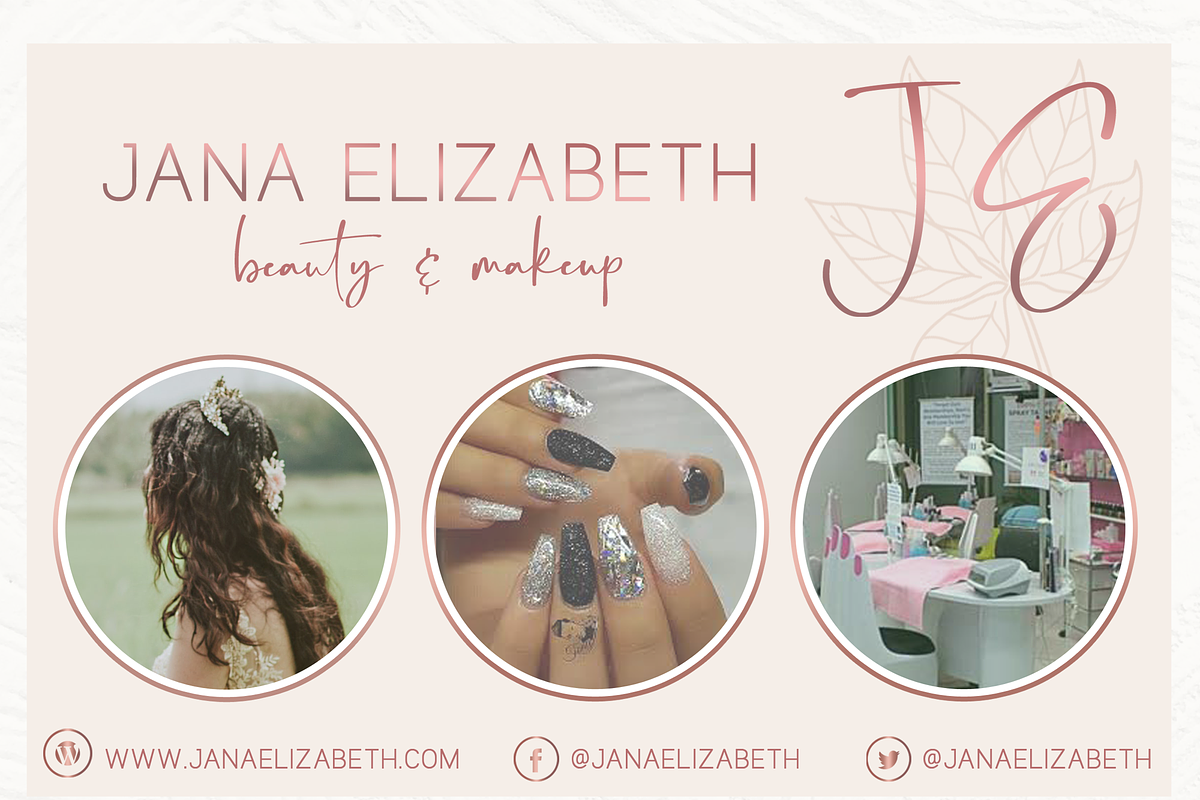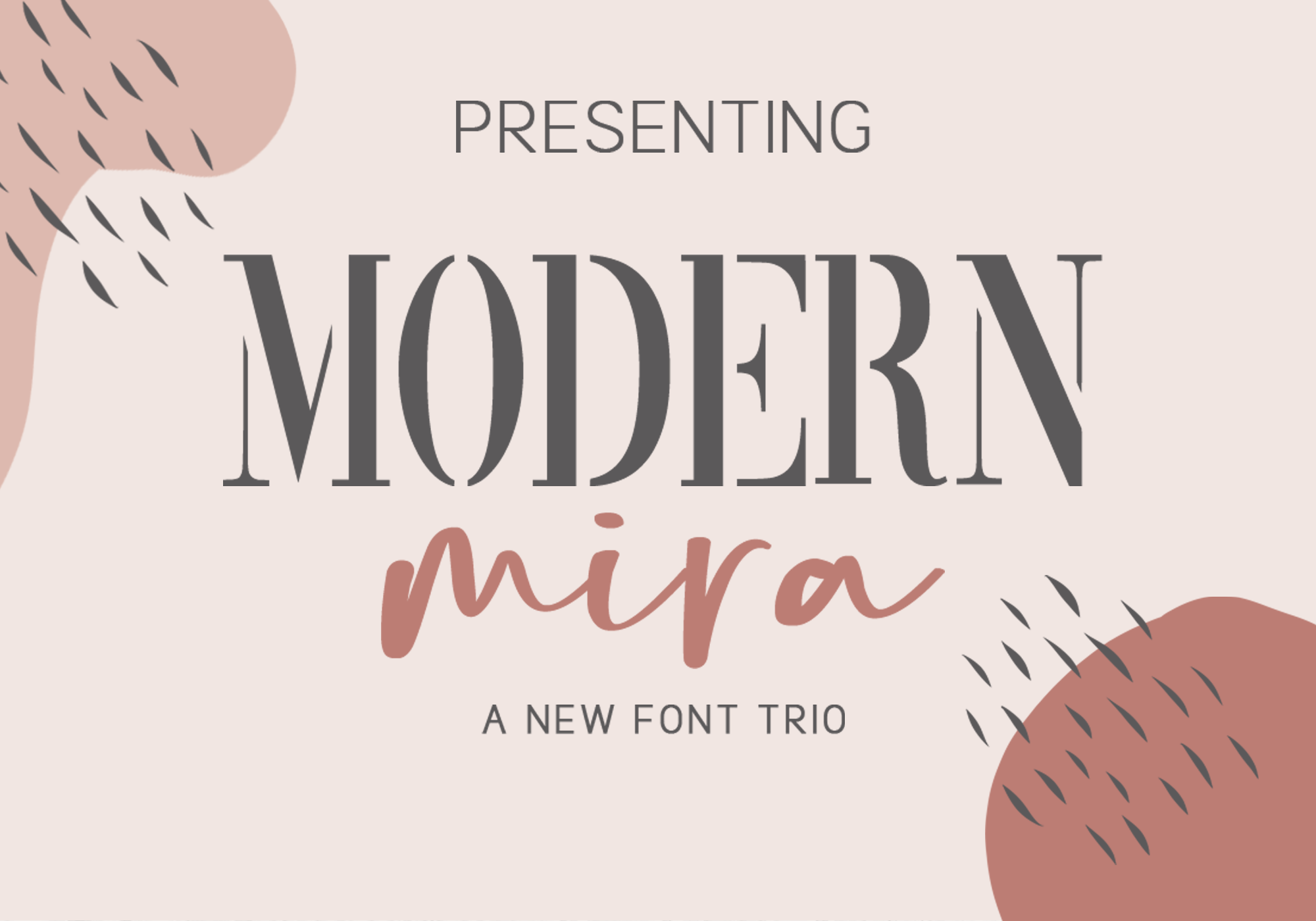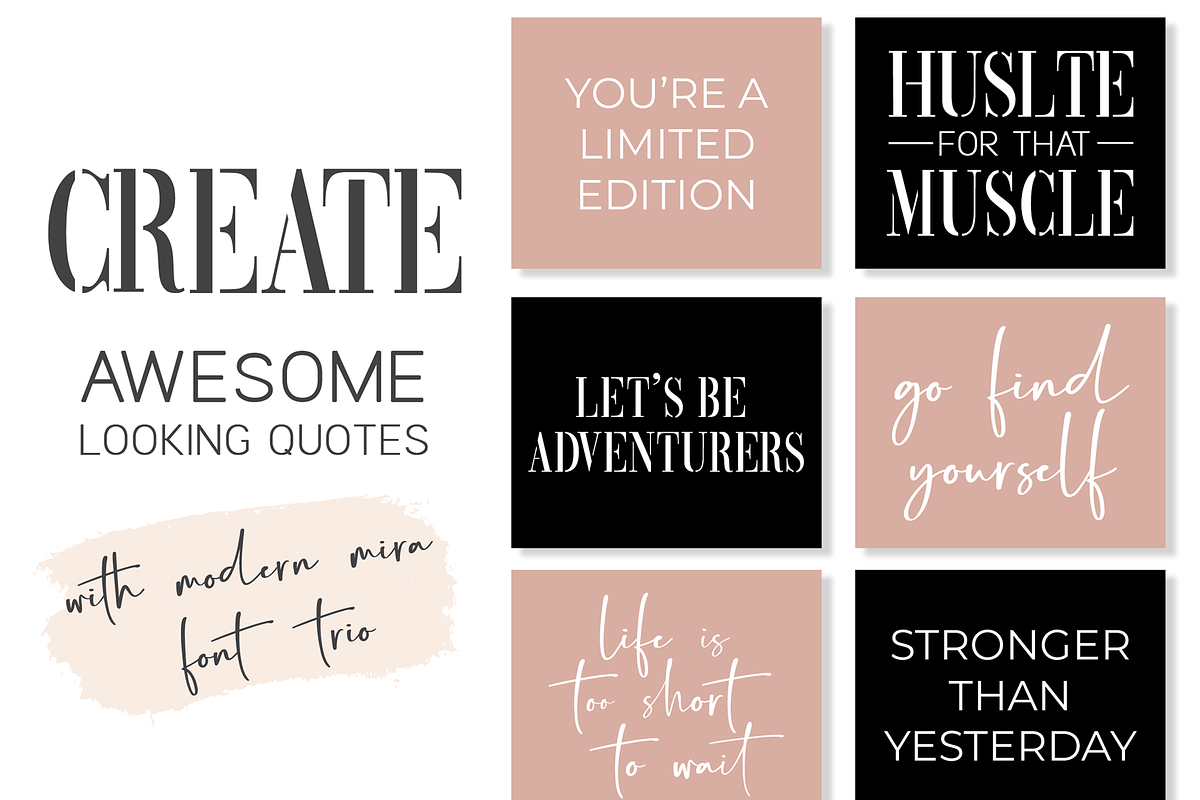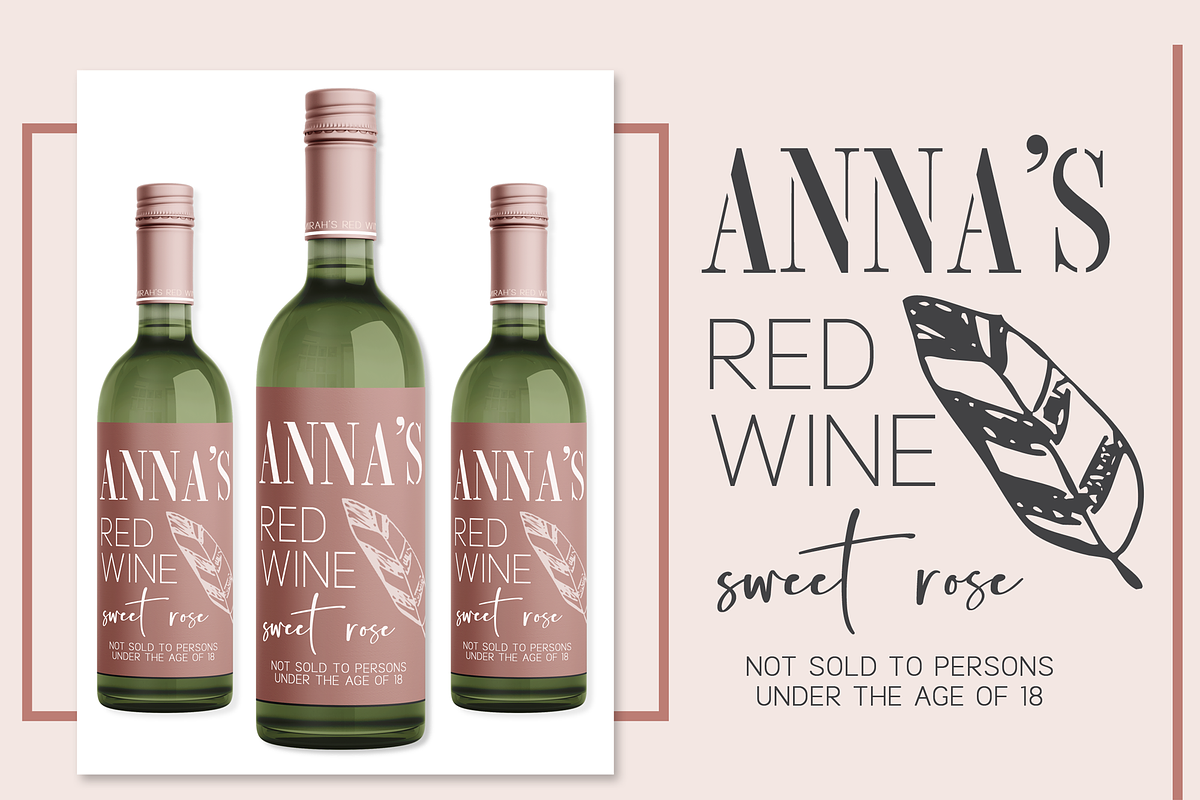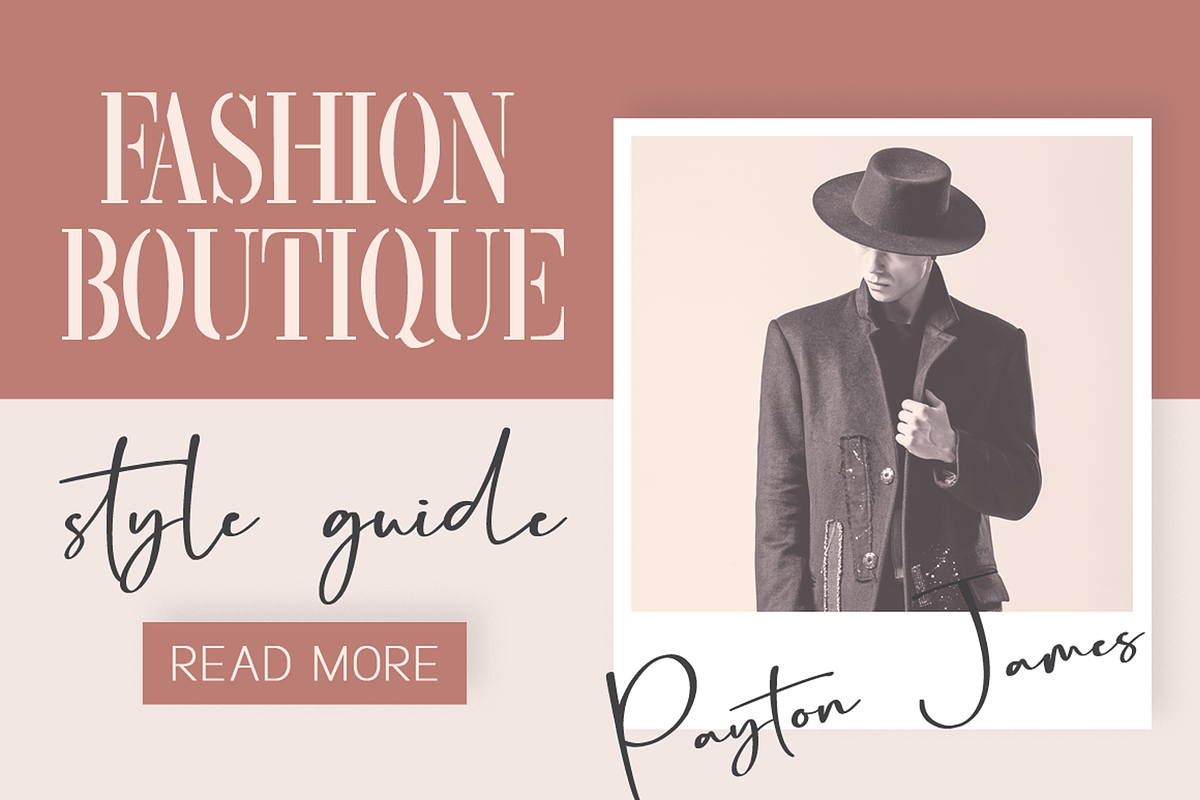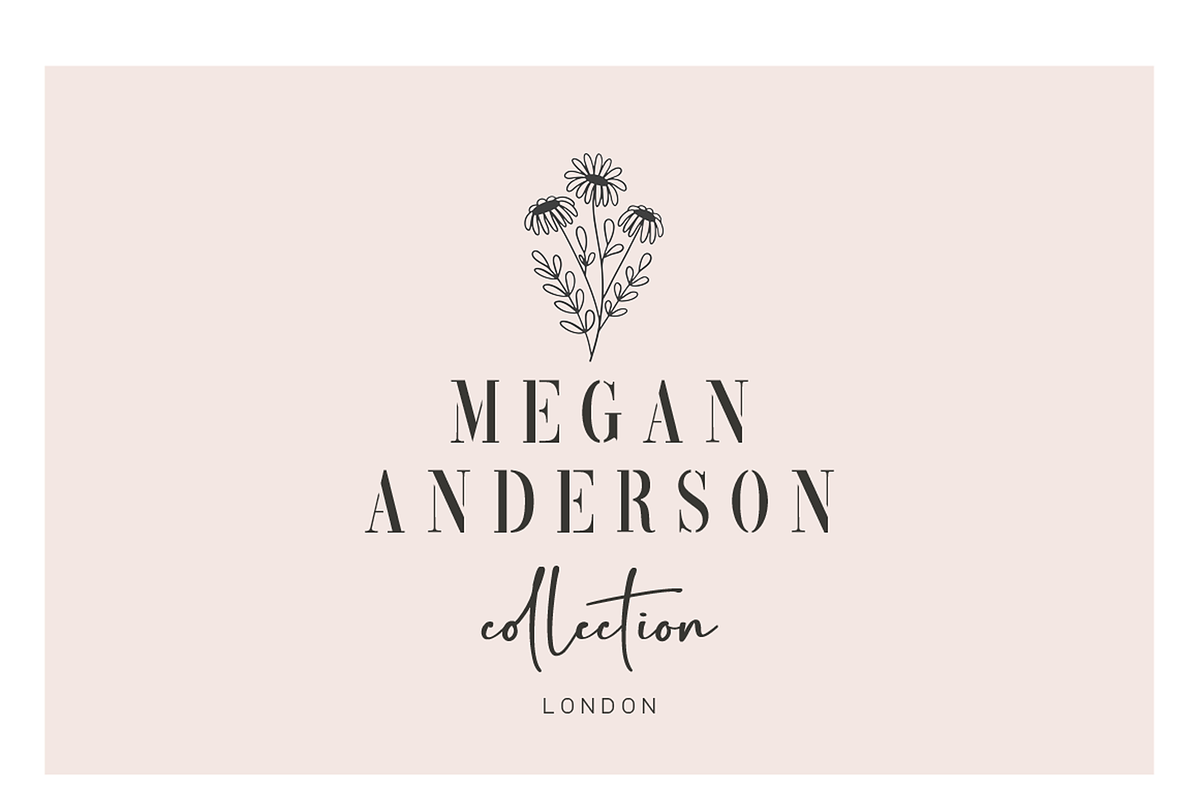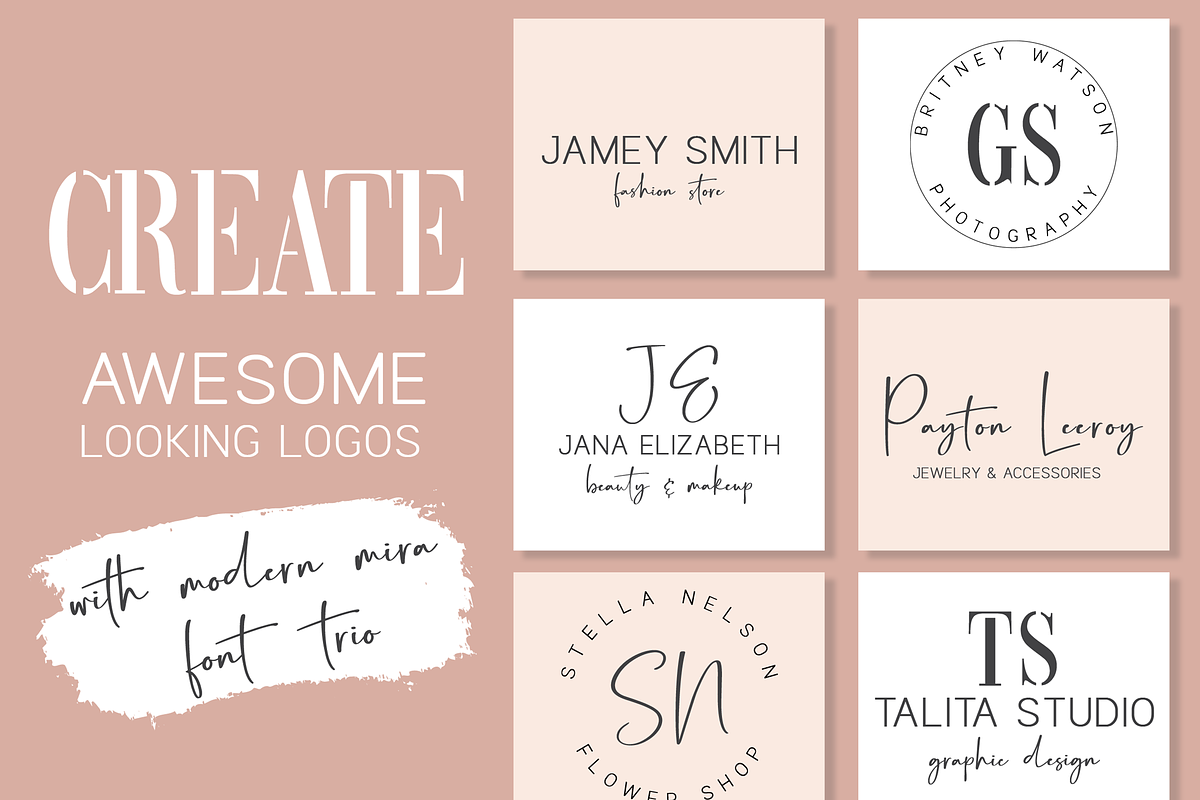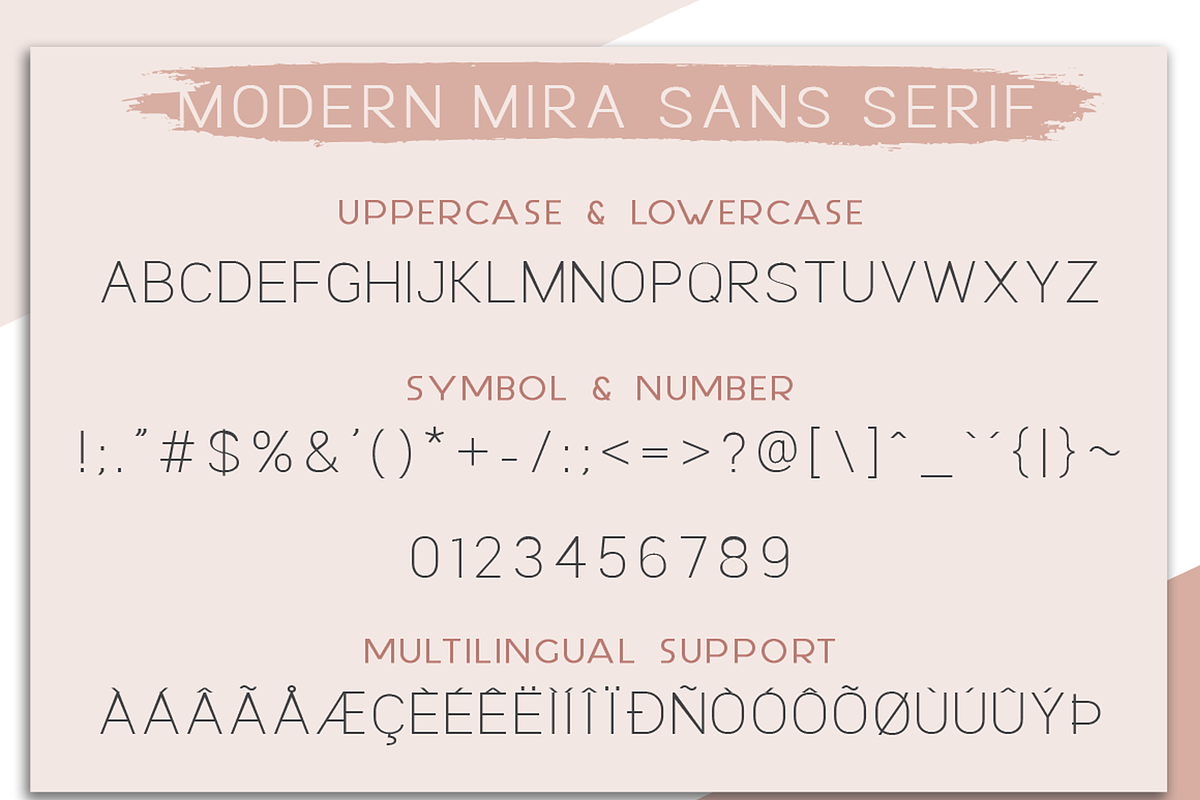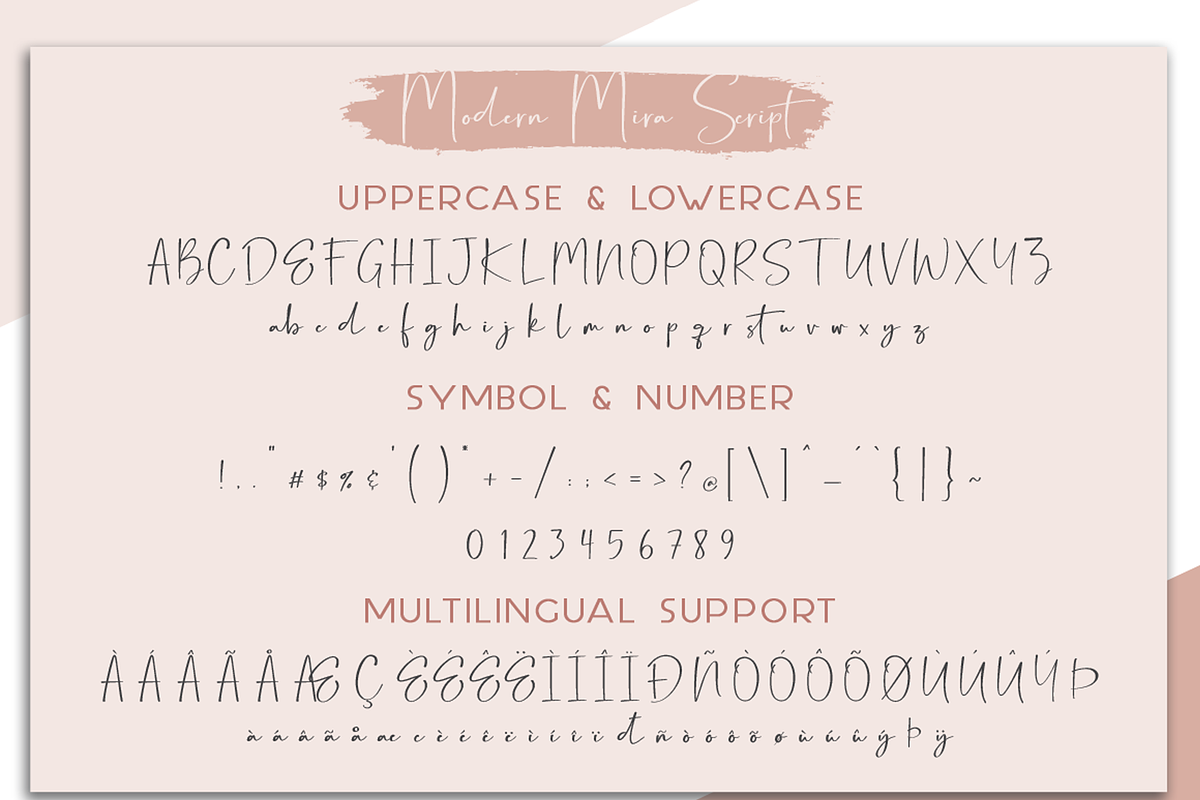
Modern Mira Font Trio + 12 Free Logo
Introducing the Modern Mira Font Trio, an awesome trio, all designed to complement each other perfectly in typographic designs, yet stand beautifully on their own , each with its own unique personality.
Modern Mira Sans Serif – is a modern, classy sans-serif font with thin letters. It includes English all – cap letters, basic punctuation and numbers.
Modern Mira Script – is a modern, sophisticated font script and it comes with a full set of upper and lower case letters, multilingual symbols, numbers & punctuation.
Modern Mira Stencil – looks classy, elegant, stylish, readable and absolutely easy to use. Stands apart from your everyday stencil fonts.
Modern Mira Font Trio is versatile enough to add that modern touch to just about any project where a modern look is required.
Perfect for branding, invitations, watermarks, quotes, headlines, invitations, weddings, social media, logo design, stationery and many other design projects.